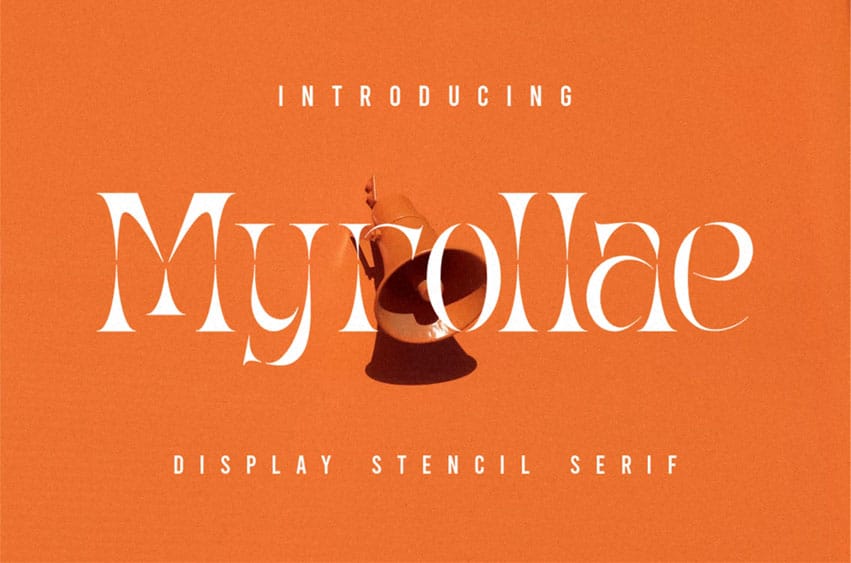
Myrollate Font is a collection of scripts that is perfect for personal branding. It was made with the intention of being used for your personal branding. But this works well for many applications.
Everything from personal branding, logos, name tags, handwritten quotes, product packaging, merchandise, social media & greeting cards. Photography signature, advertising could benefit from this collection of bold signature fonts.